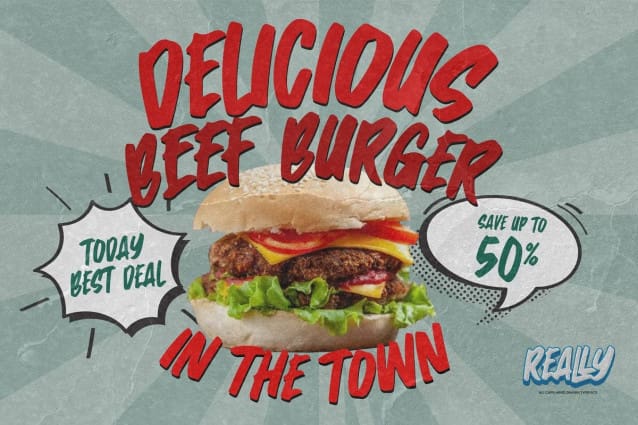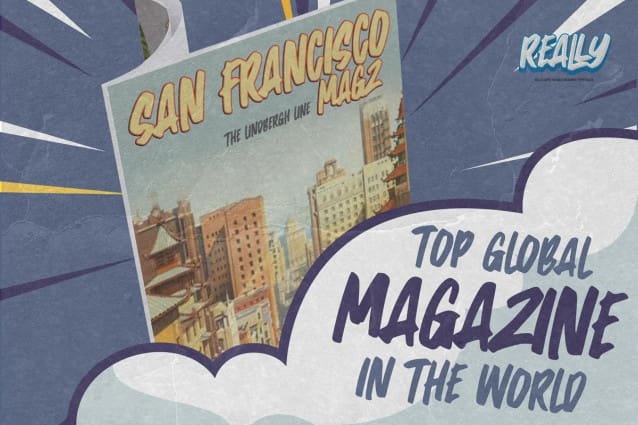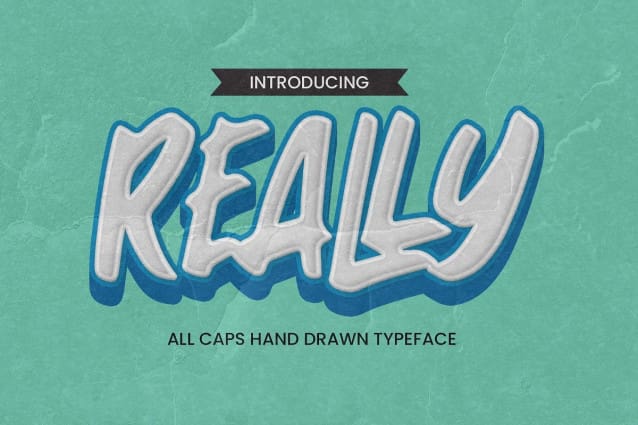
Really Display Font
Really Display Font – All Caps Hand Drawn Typeface Font with a natural style and dramatic movement.is a Authentic Font that is written casually and quickly. Every glyphs are made with Procreate. Then trace down into a vector format, and carefully crafted into a typeface. That is why Really has rough, authentic and strong characteristic more natural look. You can activate Ligature OpenType panel,
Really Perfect for designs,branding projects, Logo design, Quotes product packaging and another Project thet require cool strong brush font. Crafted manually with love and passion, This font is great for your next creative project such as logos, printed quotes, invitations, cards, product packaging, headers, Logotype, Letterhead, Poster, Label, and etc.